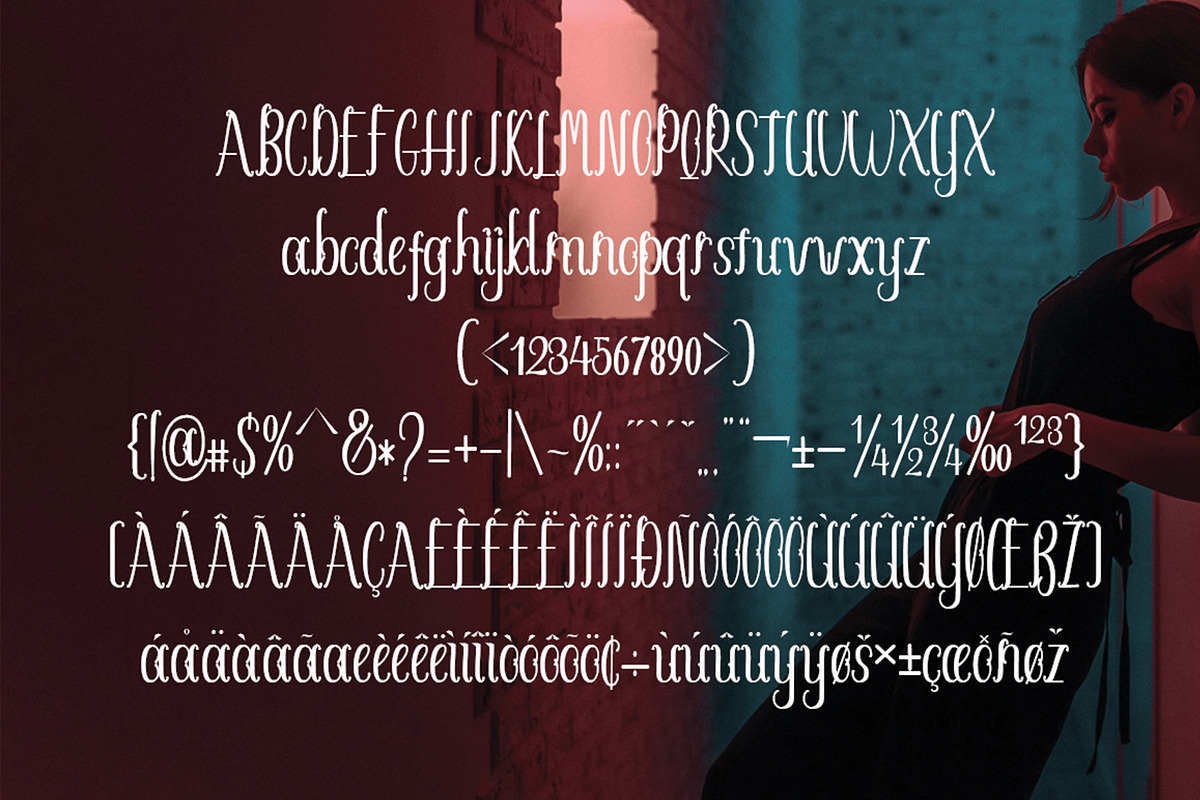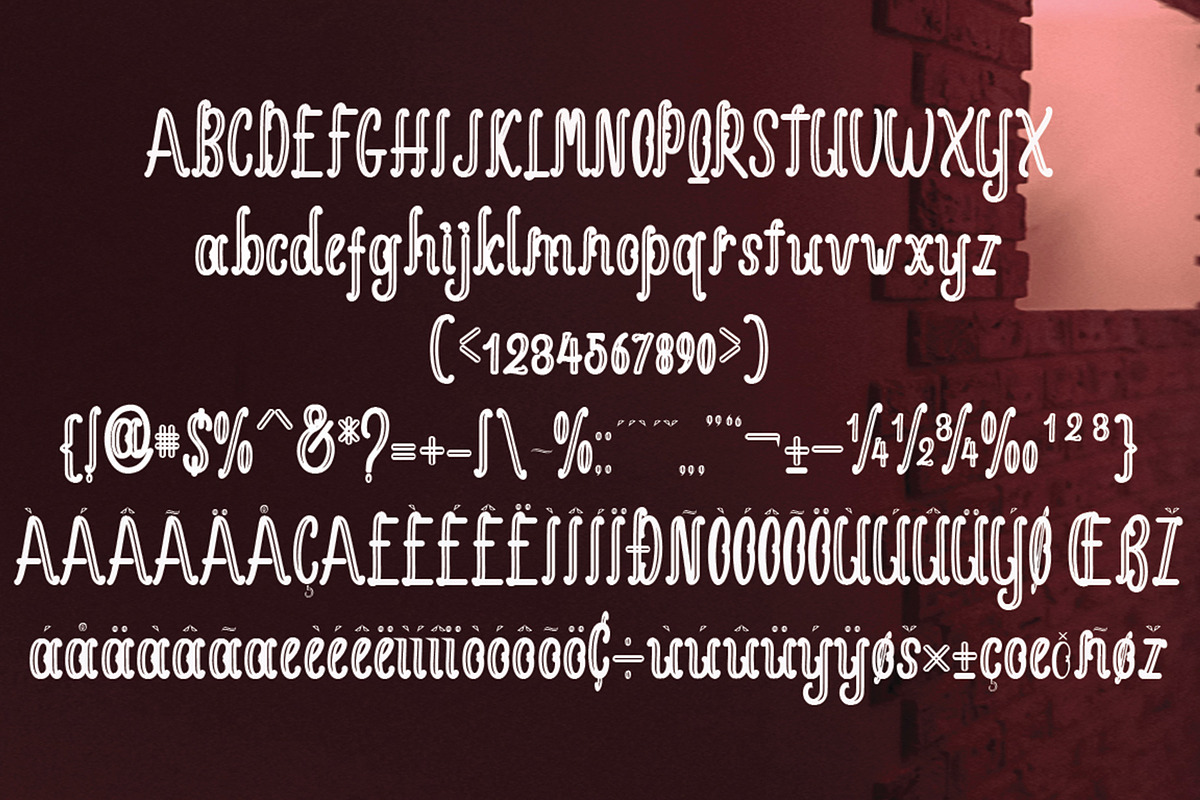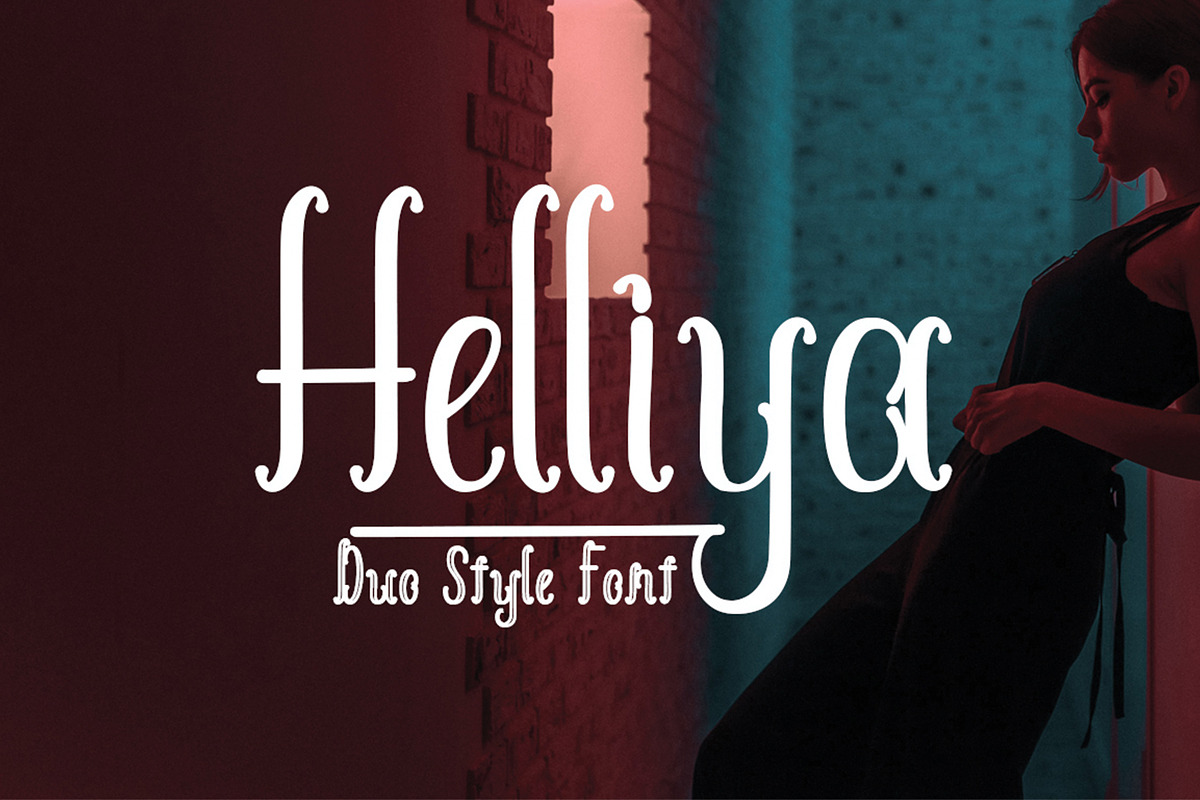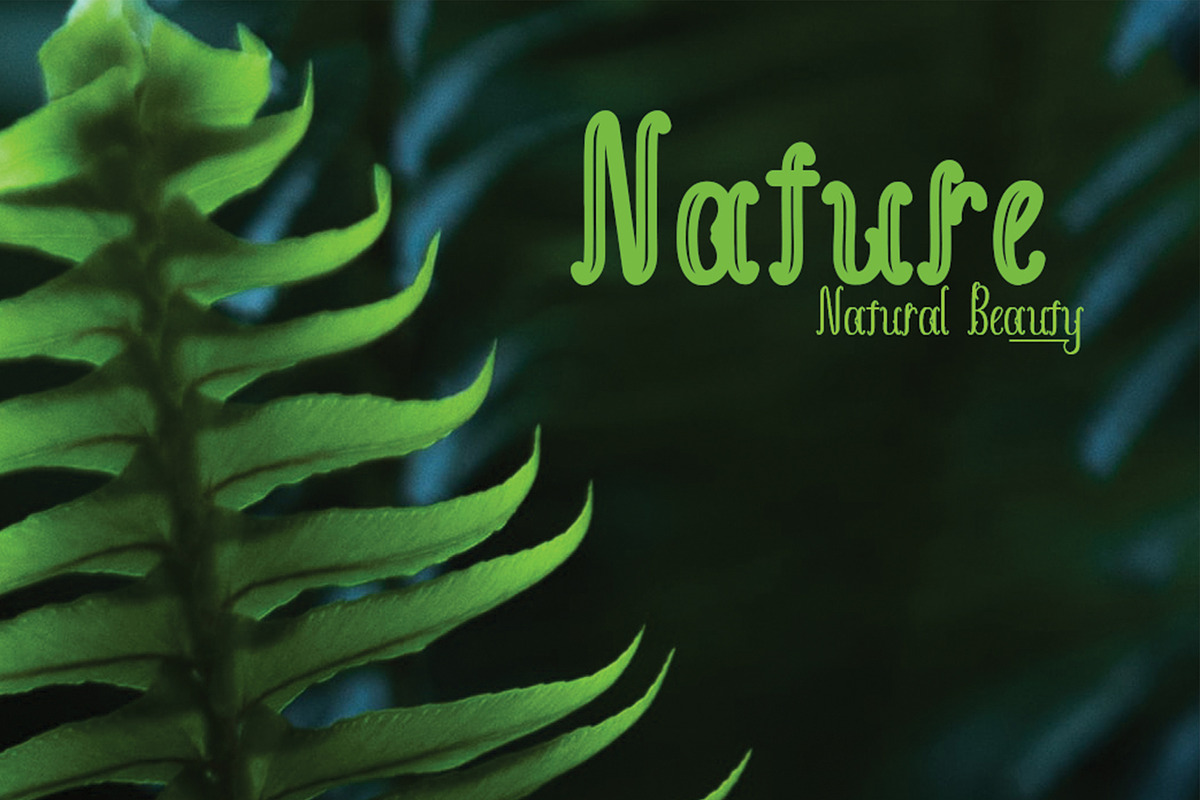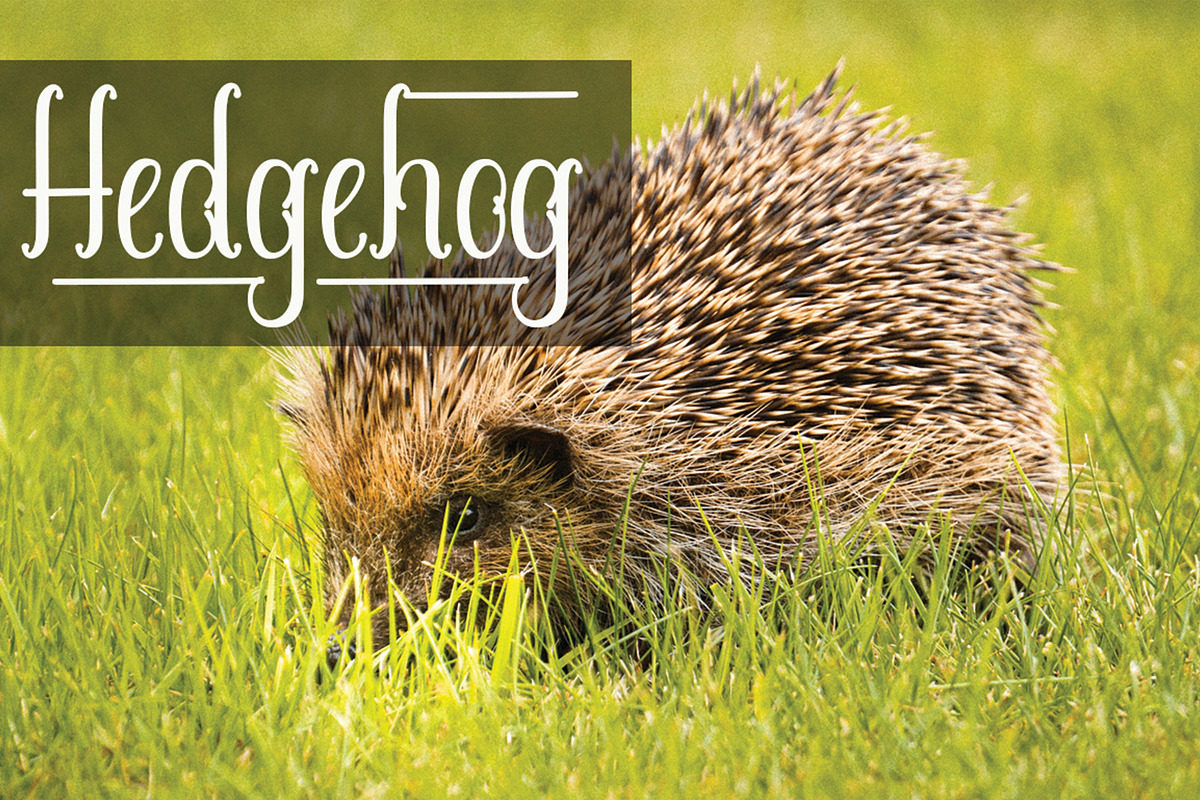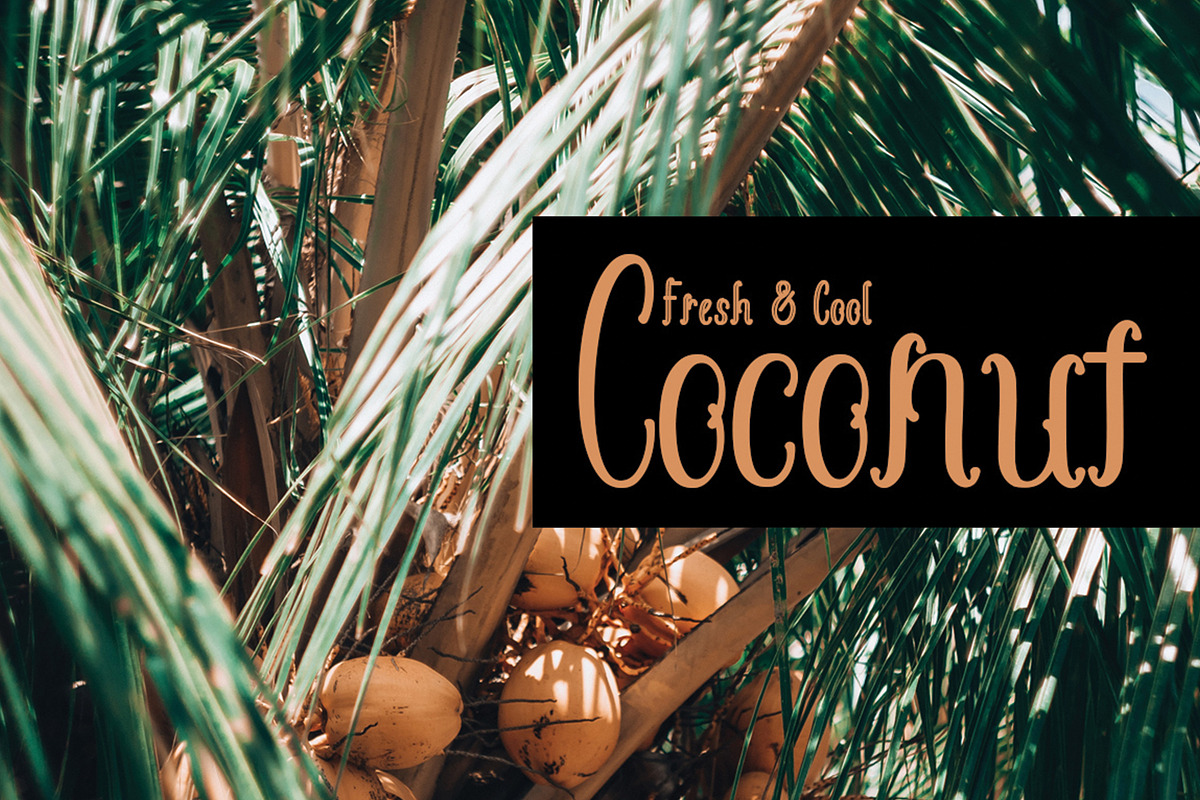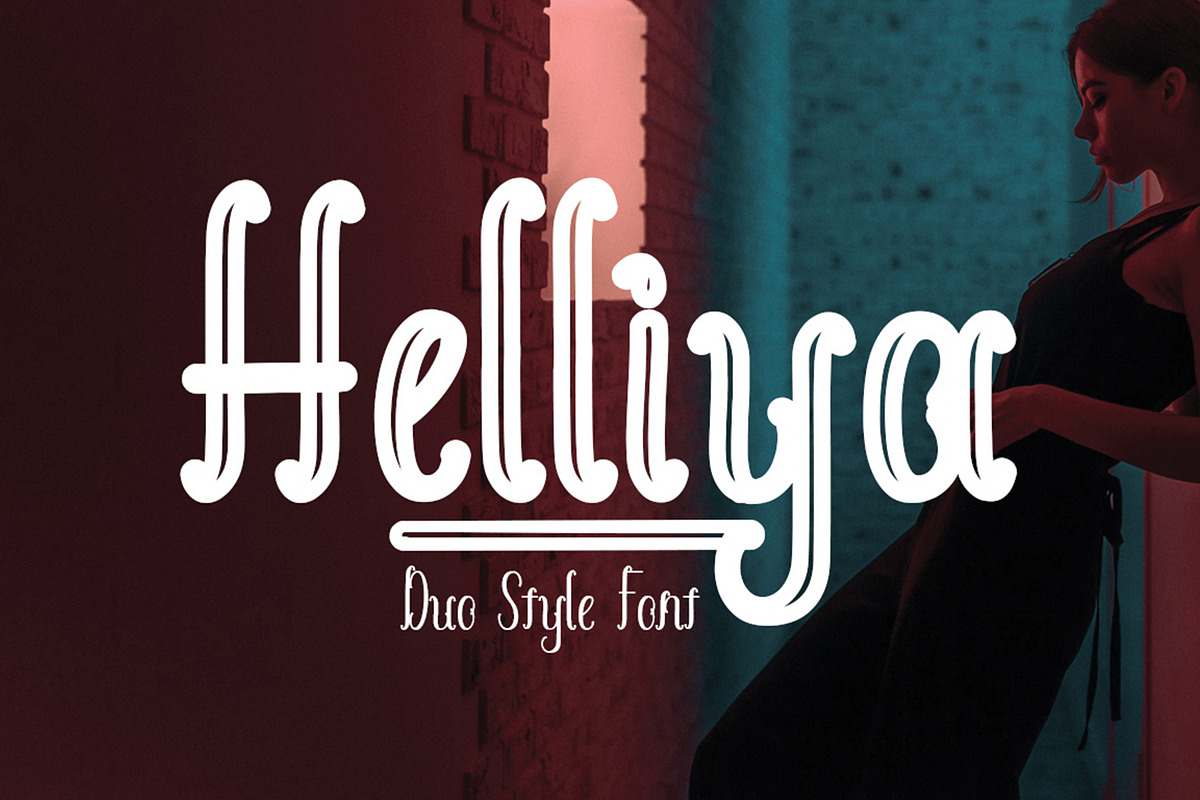
Helliya Duo Style
Helliya is Duo Font Style typography with a firm structure and very comfortable for the reader, also has a simple character. very suitable for official media such as banners, magazines, newspapers, books, and others.